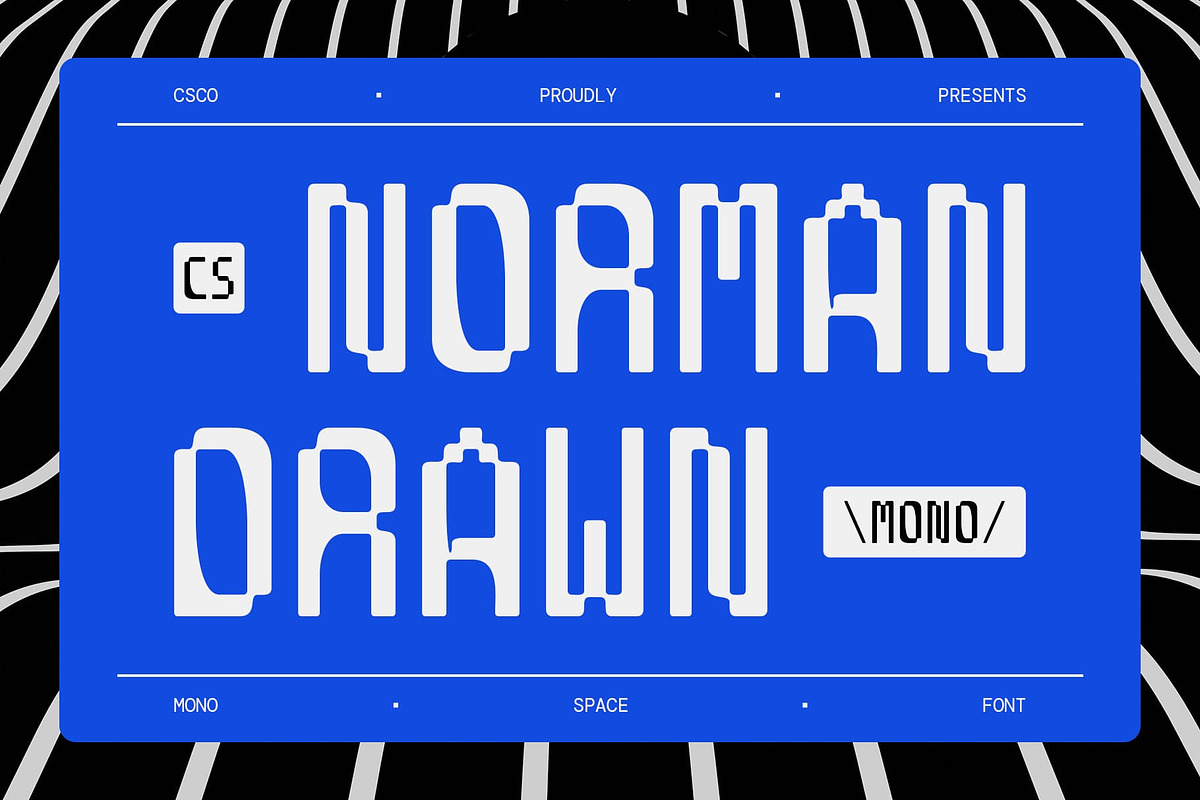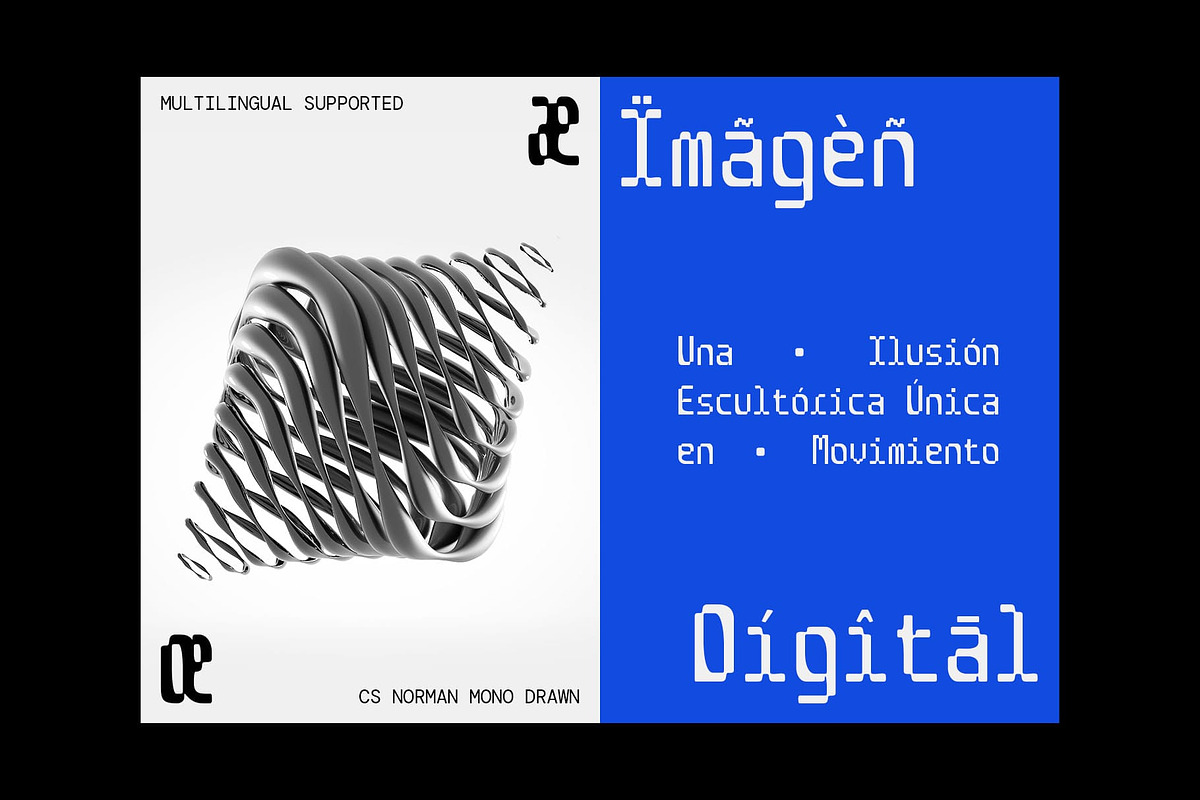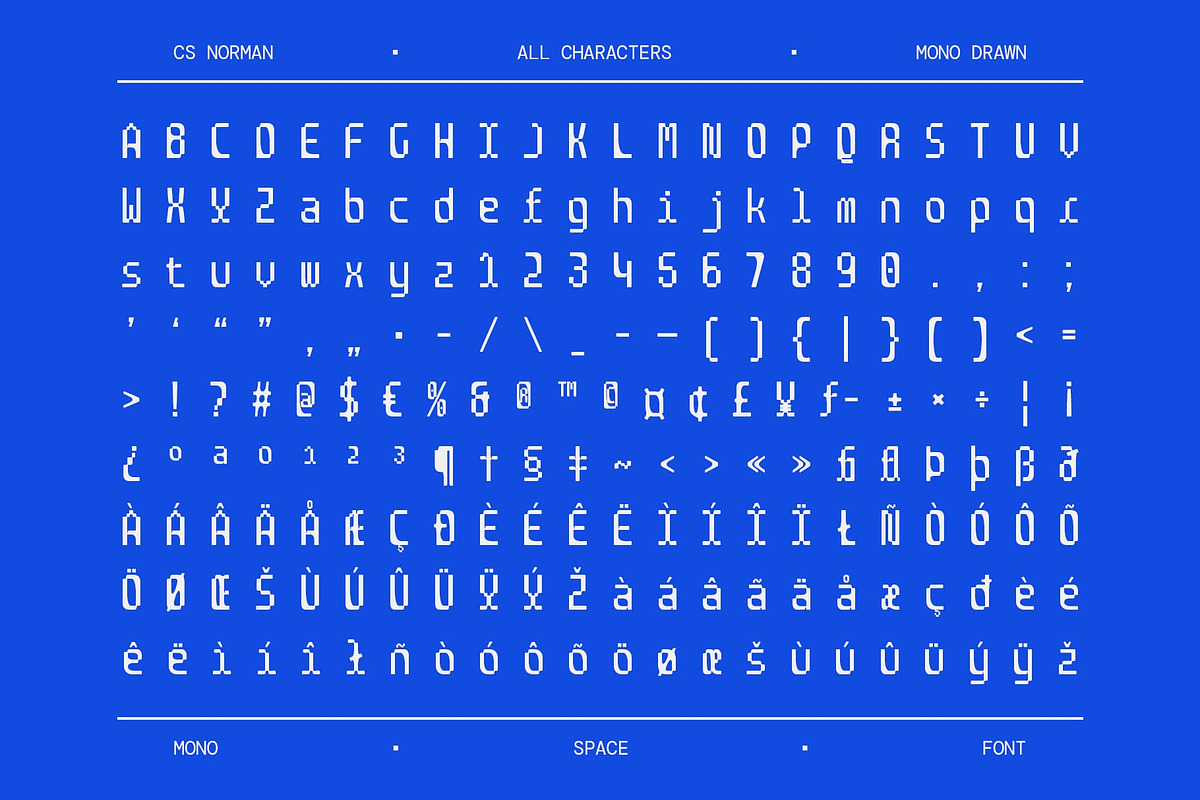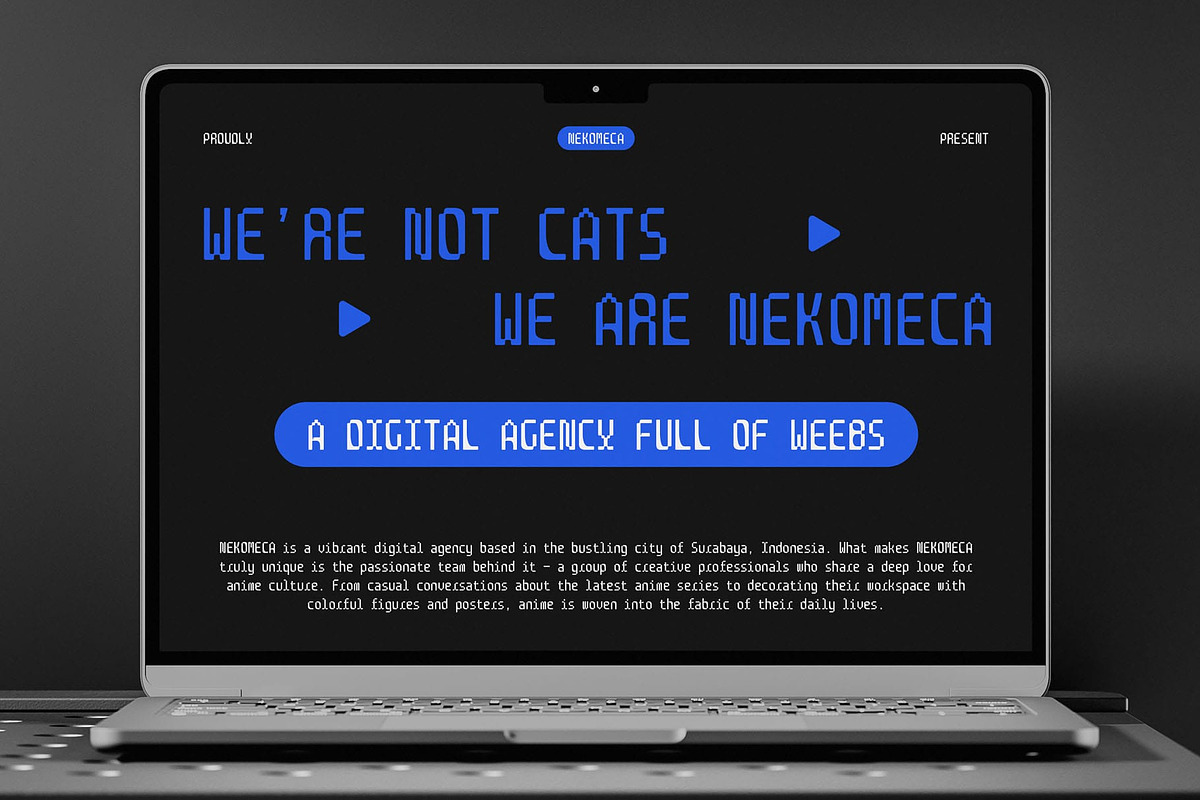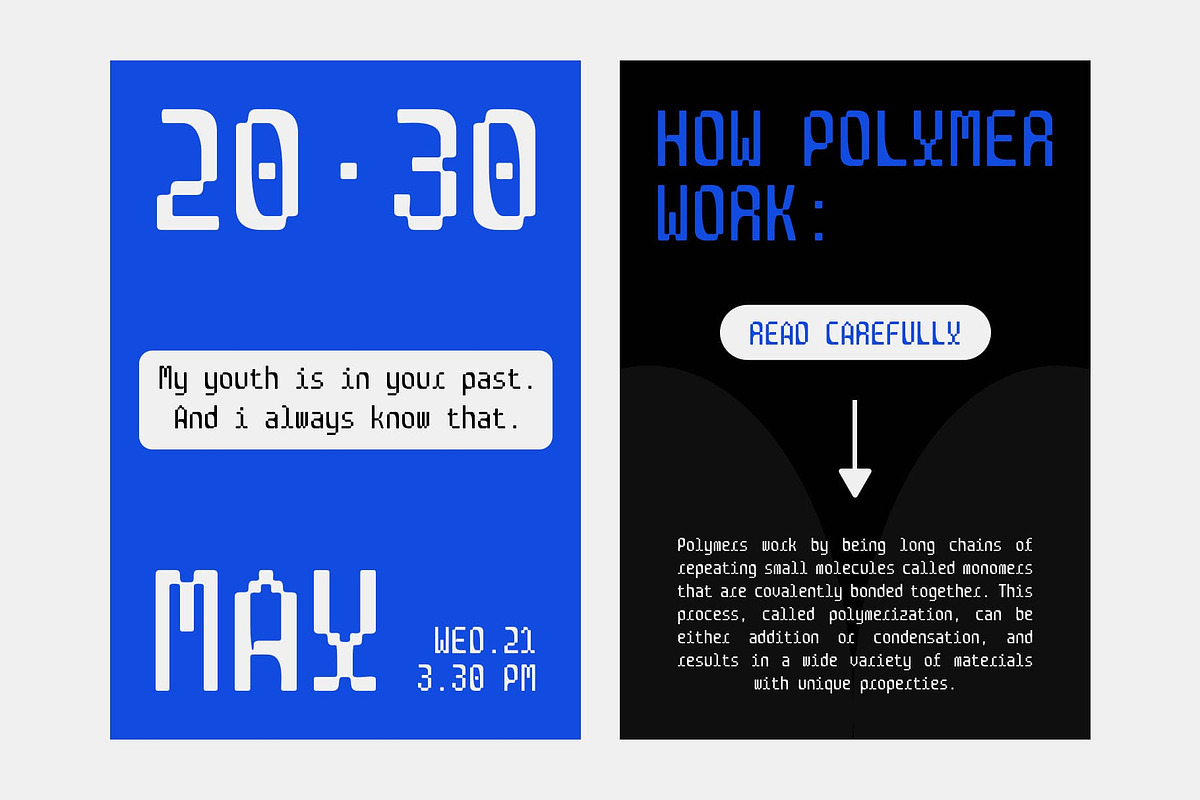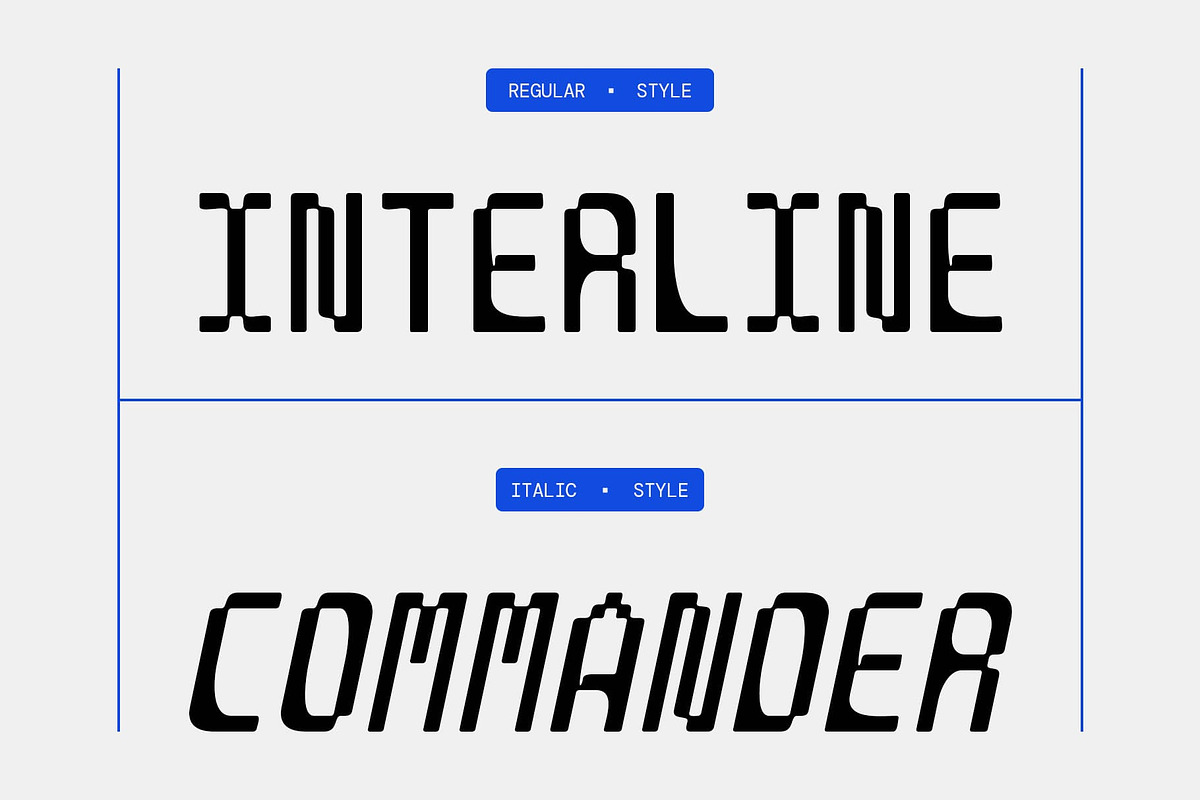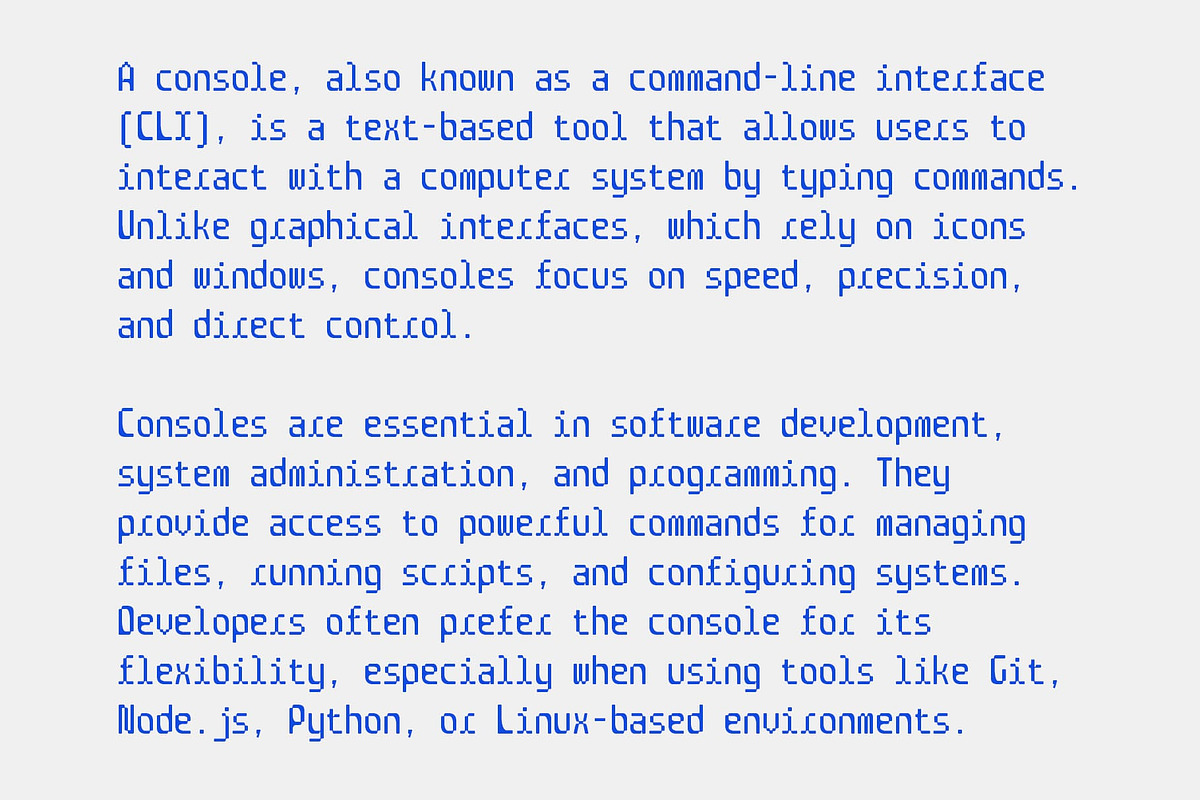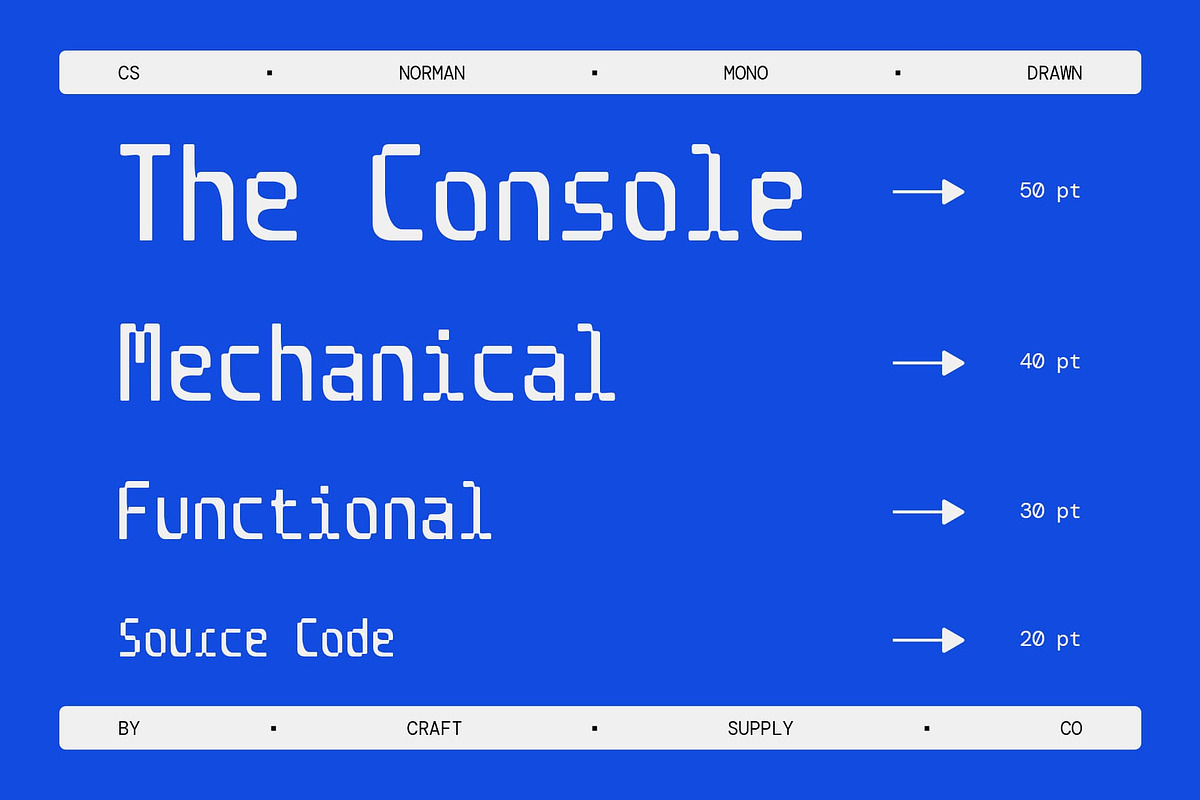
CS Norman Mono Drawn
CS Norman Mono Drawn – Retro Pixels with a Handcrafted Twist
Display Sans Serif with Monospaced Pixel Style This is a display sans serif font that draws inspiration from classic monospaced and pixel-based letterforms, instantly evoking the bold digital aesthetic of the 1990s. Each character is structured with geometric precision and a modular design, echoing early computing, gaming consoles, and bitmap typography.
Retro Vibe with Modern Functionality Infused with a distinctly retro feel, this font captures the charm of vintage tech culture—from pixel art and arcade graphics to system interfaces. Yet its overall form is streamlined for modern usability, making it suitable for both nostalgic and contemporary digital designs.
Drawn Effect for Handcrafted Personality Adding a unique layer of charm, the hand-drawn effect introduces an organic, textured quality to its otherwise rigid structure. This combination bridges the gap between mechanical uniformity and personal artistry, giving this retro monospaced font an expressive and approachable character.
Perfect for Nostalgic and Experimental Designs Ideal for projects that celebrate or reinterpret retro-futurism, this pixel monospaced font thrives in creative contexts—whether it’s gaming visuals, experimental posters, digital art, or bold branding that aims to merge nostalgia with a handmade aesthetic. It’s a standout font for designers looking to infuse their work with both digital precision and human touch.